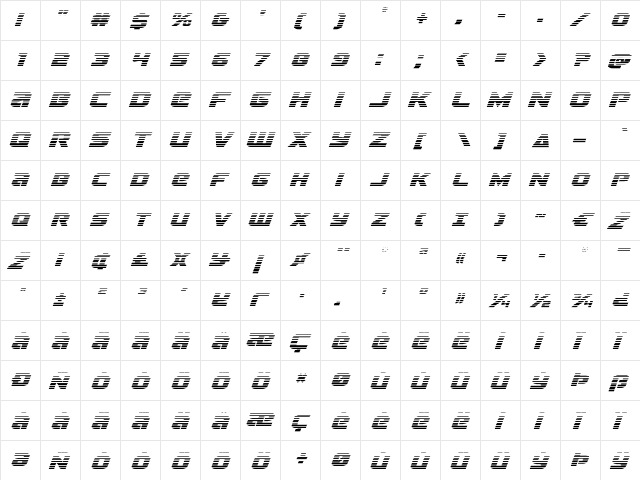
Terran Gradient Italic Italic
Design Context for Terran Gradient Italic Typeface
Terran Gradient Italic takes a measured approach to typography — its balanced proportions and neutral character make it a reliable workhorse for both digital and print work. Its italic angle brings a sense of urgency and motion to the letterforms.
Pro Tip: Try Terran Gradient Italic for annotation and caption copy alongside an upright companion — the contrast in angle creates a dynamic but ordered typographic system.